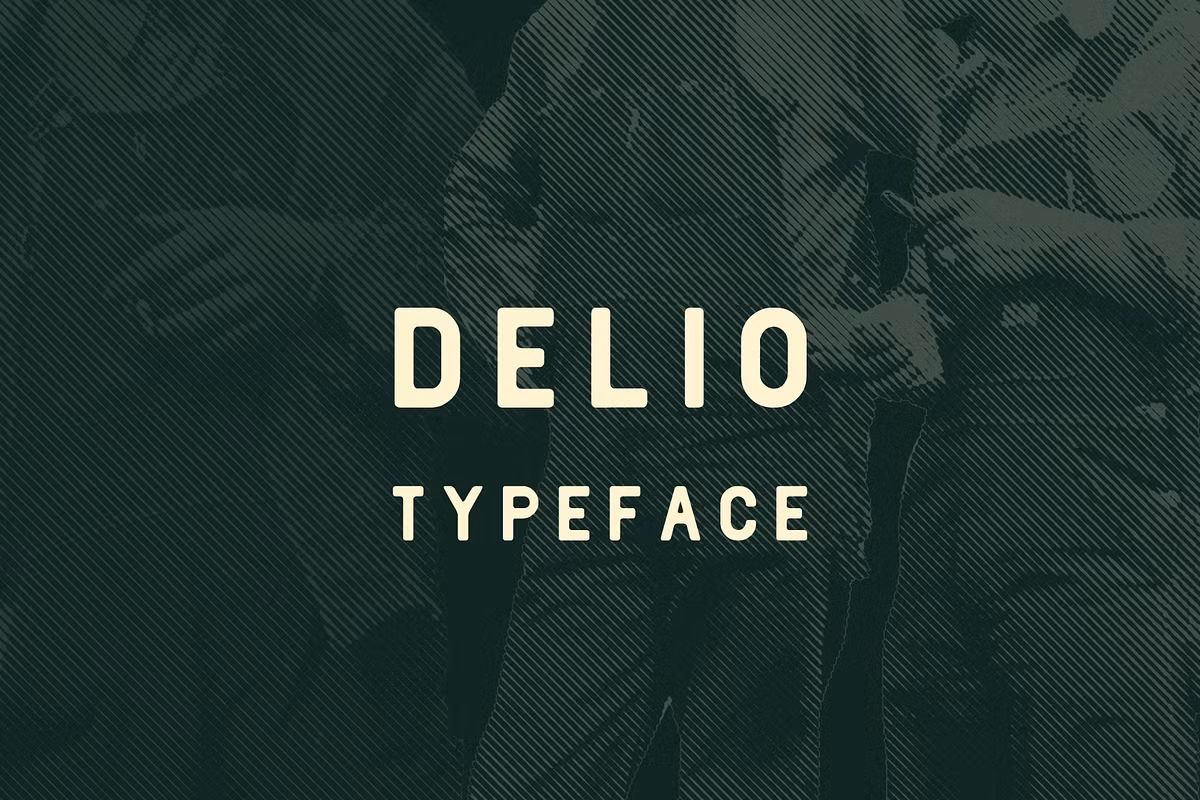
The Delio Typeface Free Download is a modern and elegant font designed to bring sophistication and clarity to your designs. With its clean lines and balanced letterforms, this typeface is perfect for creating professional logos, branding materials, editorial designs, and more. The Delio typeface offers a perfect blend of modernity and timeless style, making it ideal for both digital and print media. Whether you're working on business branding, social media graphics, or creative projects, Delio ensures your typography looks both sleek and stylish. Please note, for commercial use, a license purchase is required. However, you can easily download the Delio Typeface Free Download for free for personal use and experiment with its versatility. Download the Delio Typeface Free Download today and elevate your design projects with a contemporary, professional touch.